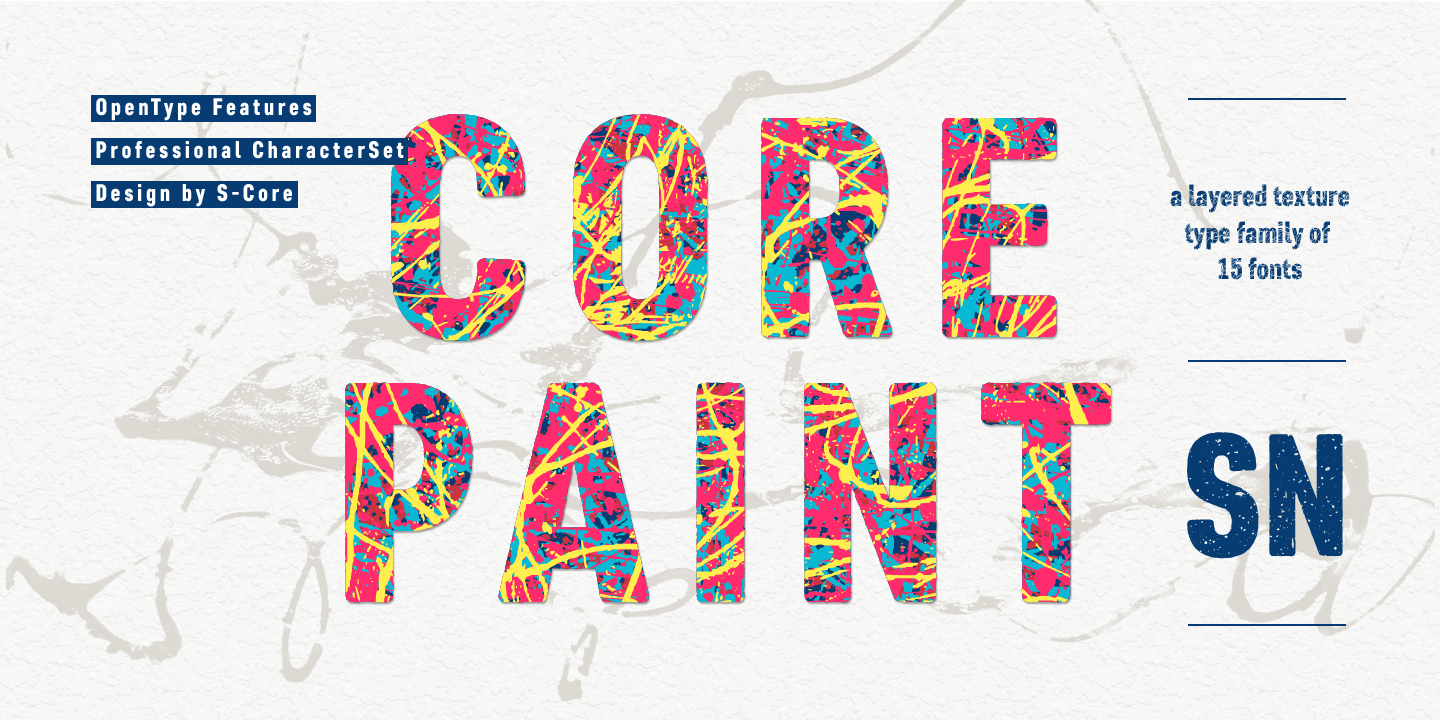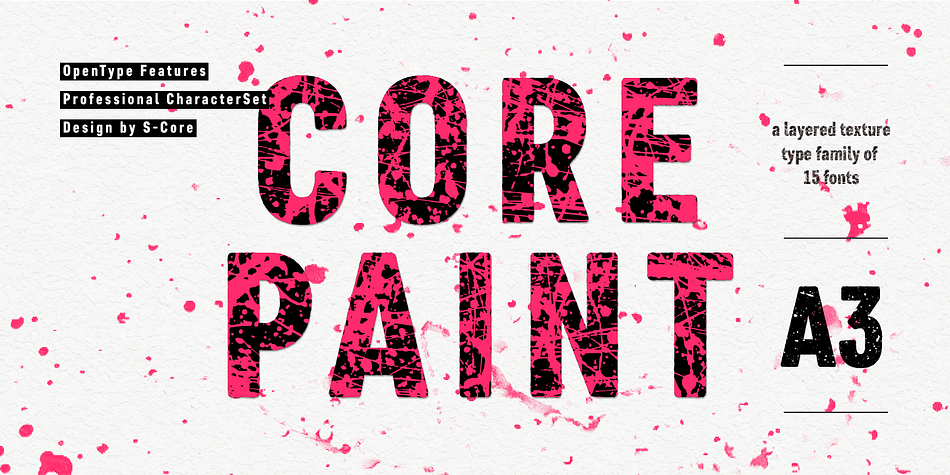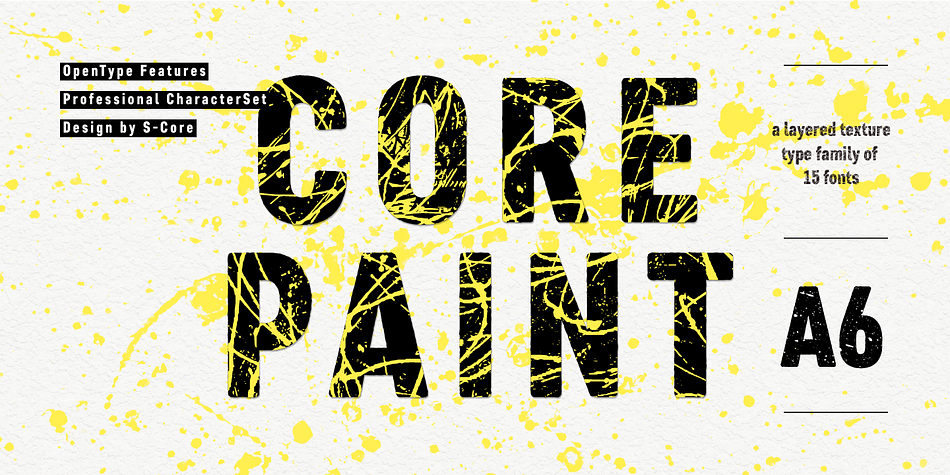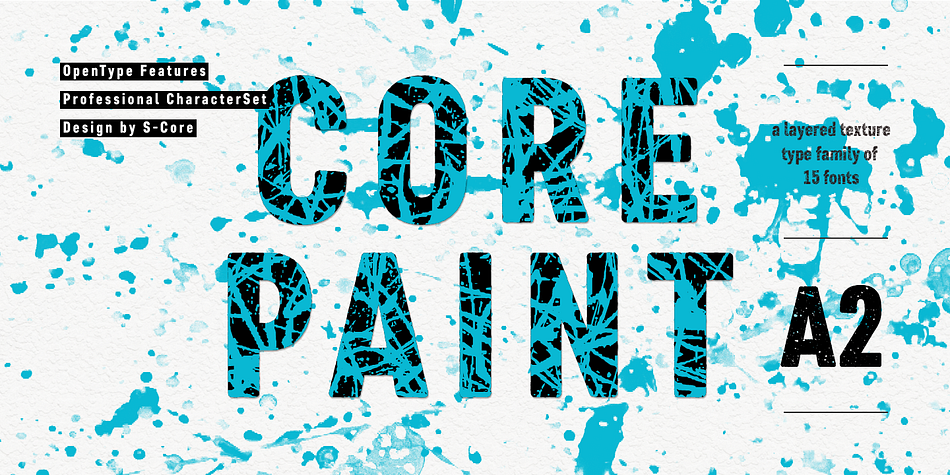
Designed by Hyun-Seung Lee, Core Paint is a grunge and display sans font family. This typeface has fifteen styles and was published by S-Core.
Core Paint is a texture type family inspired by the action painting created by Jackson Pollock. There are two sub-families named A and B. Core Paint A is a texture font family that has to be used together with others. Core Paint B is a textured font family that can be used solely or together with A family. By layering these different texture styles, you can create various combinations of textures. Through adding color variations, you can also create more complex textured typefaces and unique artworks.
Core Paint Family supports complete Basic Latin, Cyrillic, Central European, Turkish, Baltic character sets. Each font includes proportional figures, tabular figures, numerators, denominators, superscript, scientific inferiors, subscript, fractions and case features. This family is really nice for book titles, headlines, logotypes and any artworks.